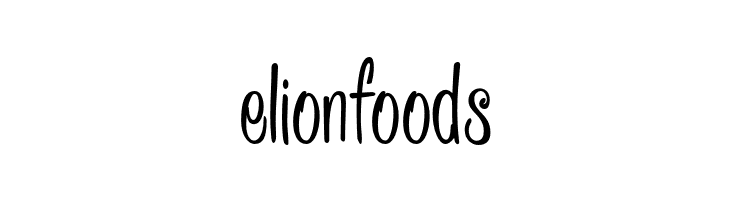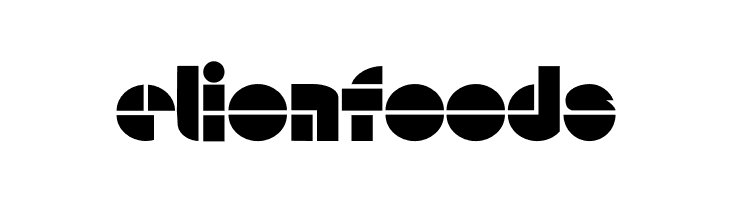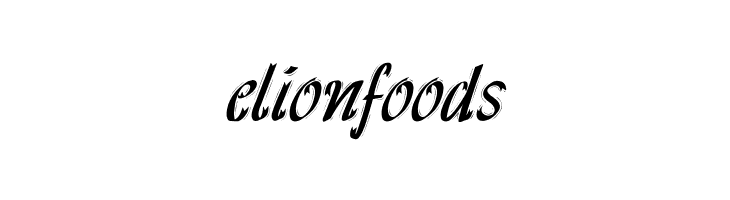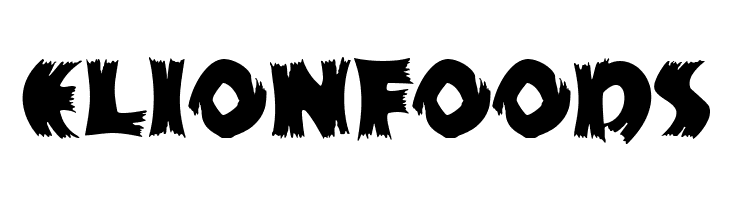
• HFF Floral Stencil
Ornamental floral stencil illustrations with bold, detailed silhouettes.
• HFF Floral Stencil
( Fonts by Have Fun with Fonts )
Decorative floral stencil font with unique plant illustrations for each character.
• HFF Kids Stuff
( Fonts by Have Fun with Fonts )
A whimsical, illustrative font featuring playful scenes with children and toys.
• HFF Modern Strand
( Fonts by Have Fun with Fonts )
A bold, geometric font with a modern and impactful design.
• HFF Pessoas Lindas
( Fonts by Have Fun with Fonts )
A playful handwritten font with tall, narrow letters and a casual style.
• HFF Ribbon
( Fonts by Have Fun with Fonts )
A decorative script font with a ribbon-like, flowing style and high contrast strokes.
• HFF Splintered Dream
( Fonts by Have Fun with Fonts )
A bold, jagged font with sharp, irregular edges for a dynamic and edgy look.
• HFF Whirly Whorl
( Fonts by Have Fun with Fonts )
A whimsical, decorative font with intricate swirls and curls.
• High Sign
( Font by McKack )
• Highway Gothic
( Fonts by Tom Oetken - Ash Pikachu Font )
A clean, legible sans-serif typeface designed for readability and clarity.